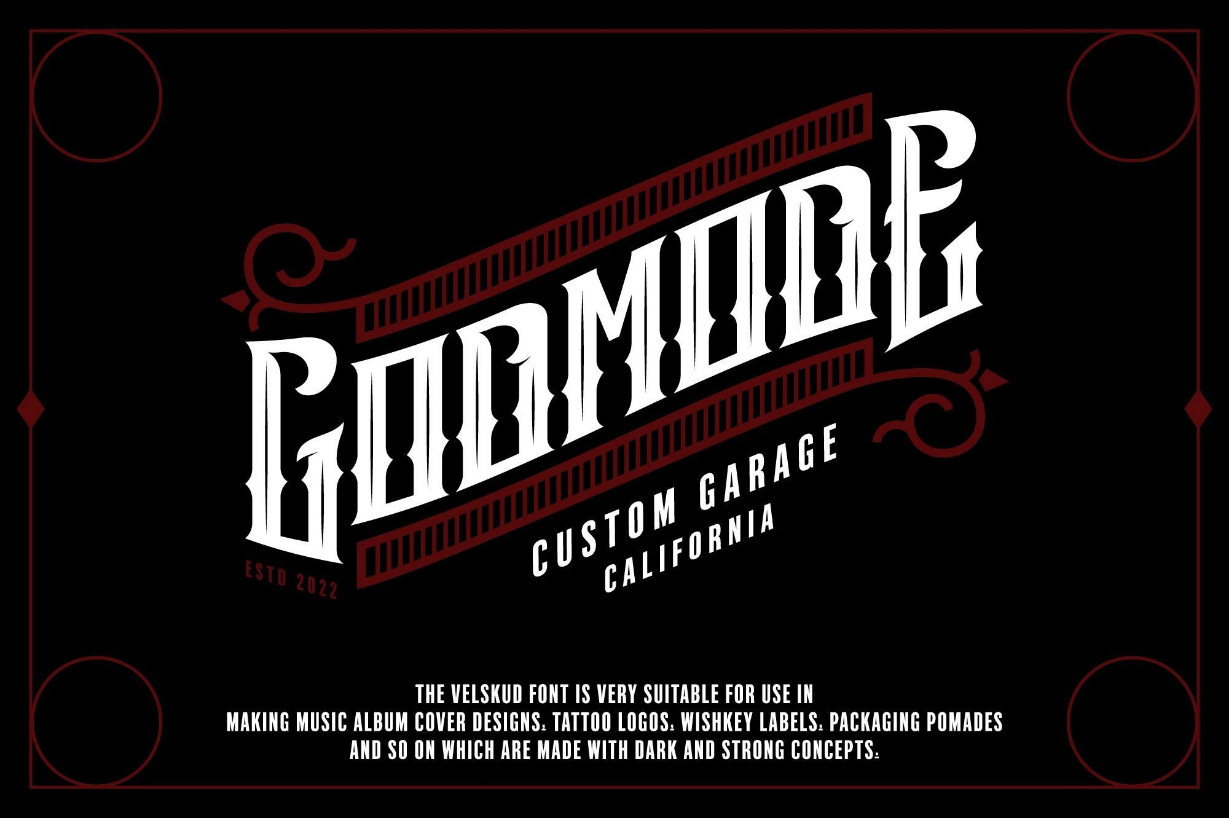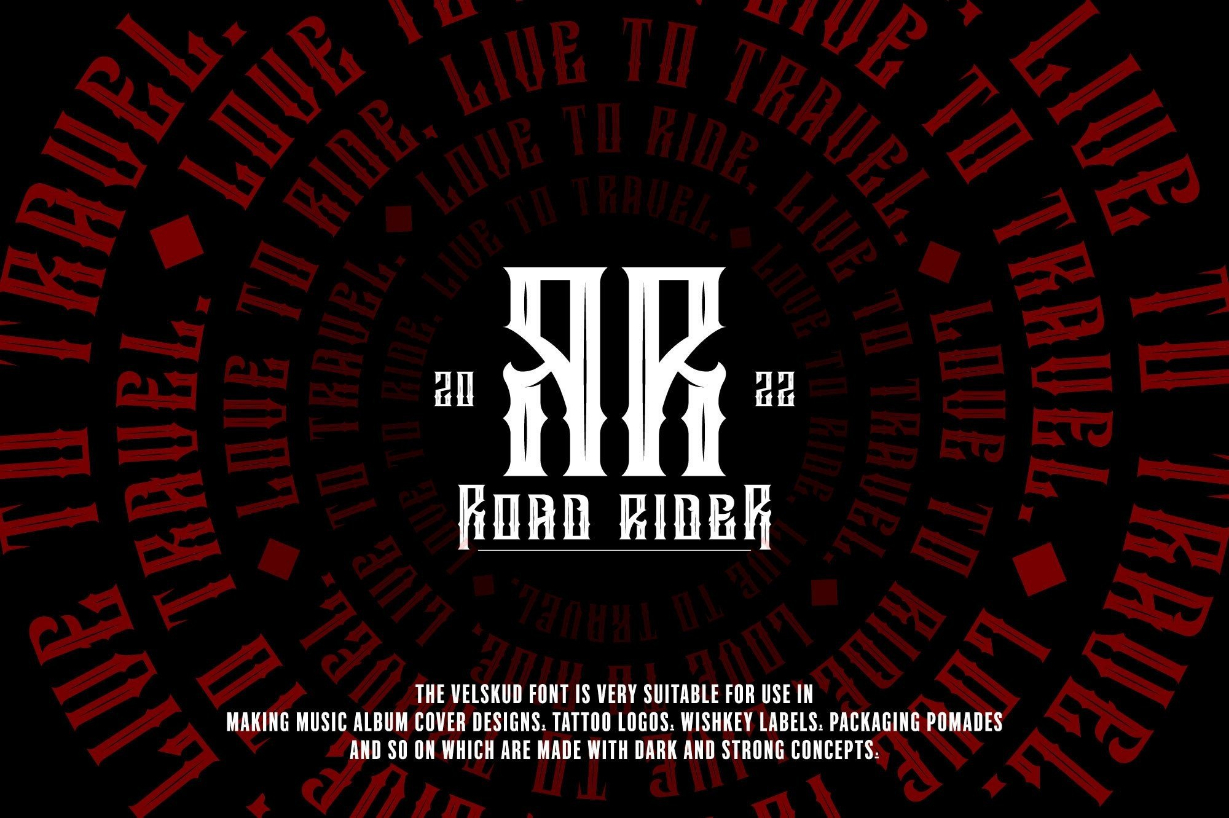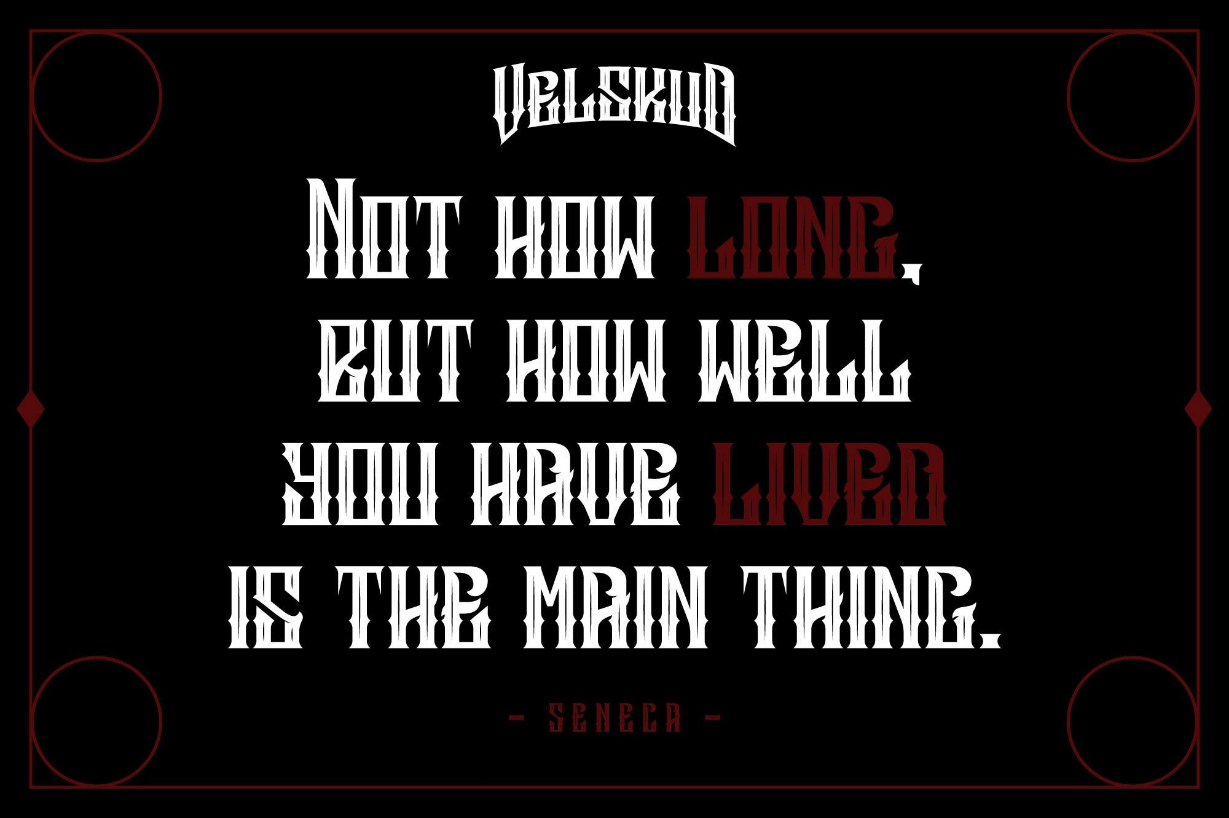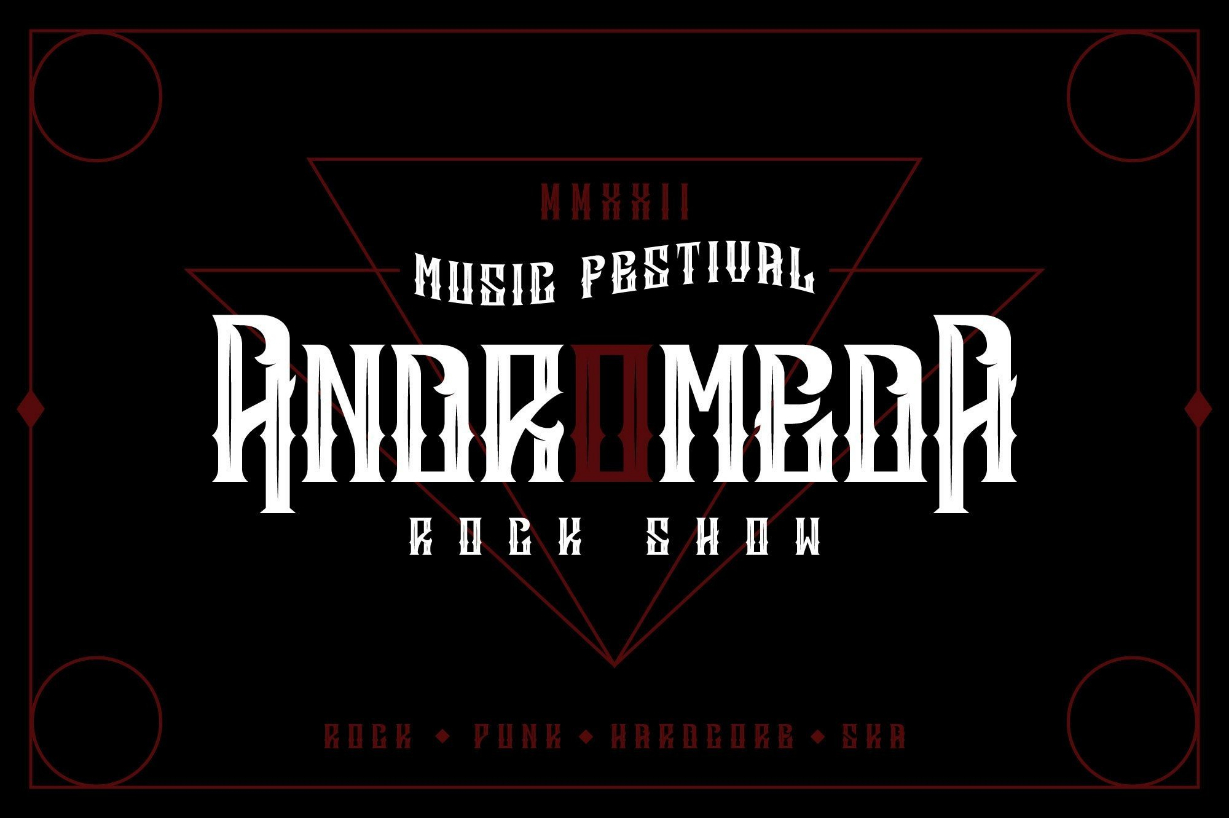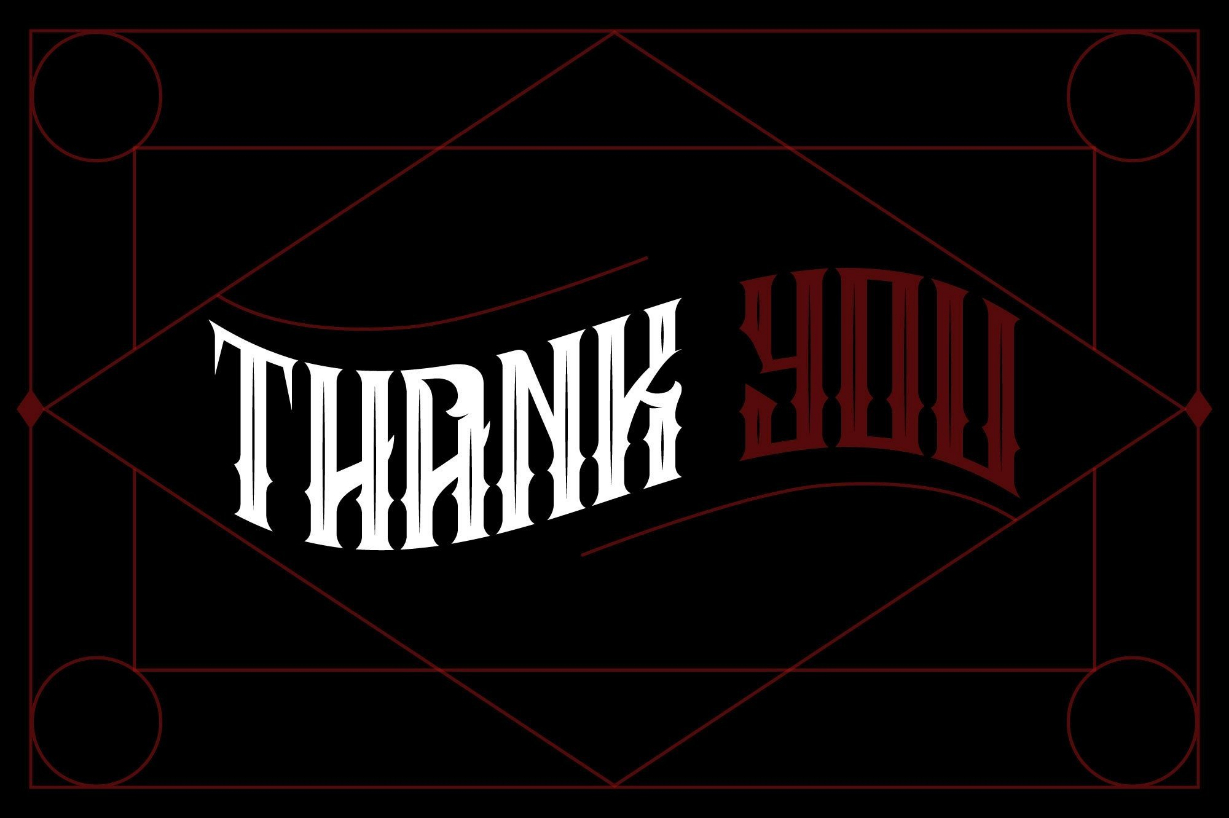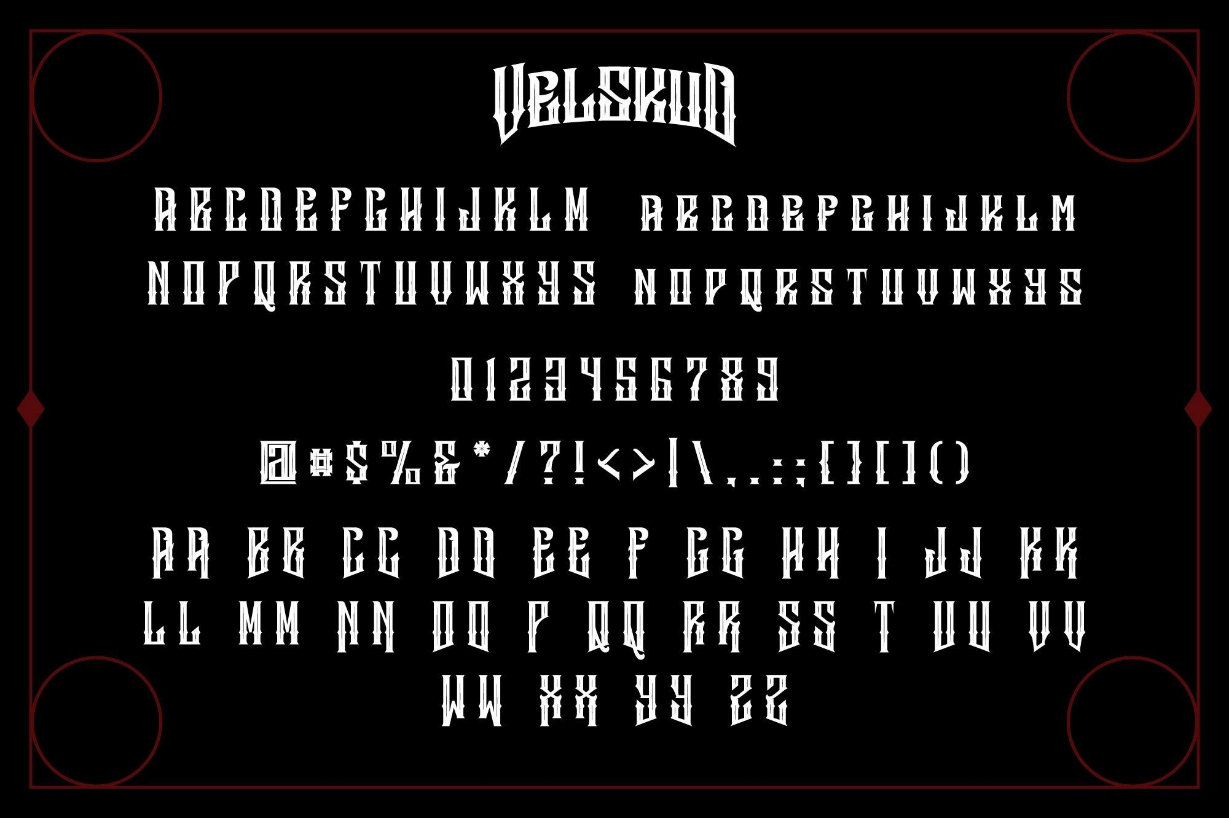
Velskud Font
About Velskud Font
Velskud is a distinct and intricate blackletter font. This font is neatly crafted and highly detailed. Whatever the topic, it will be a wonderful asset to your font library, as it has the potential to enhance any creation.